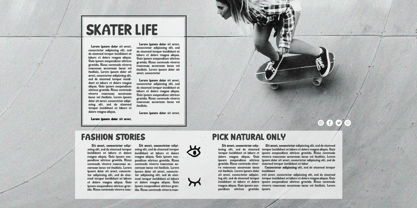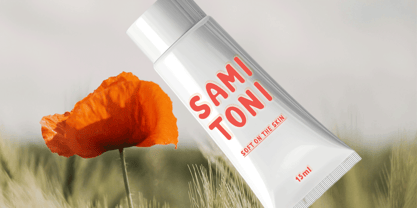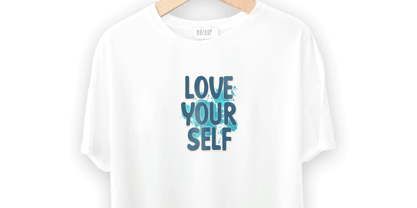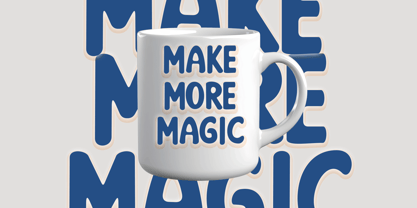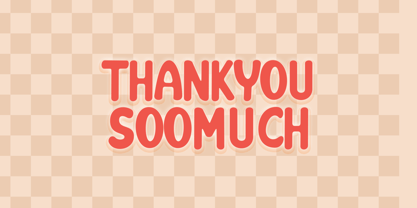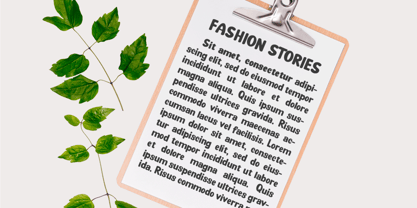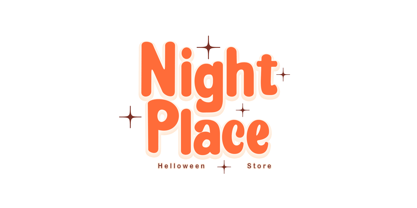
Blocky Vintage
by NH TypeStudio
The Blocky Vintage Font Family was designed by Hadi Nasrul and published by NH TypeStudio. Blocky Vintage contains 1 styles. More about this family
Blocky Vintage Script is a neat, smooth, modern and classic handwritten wavy calligraphy, created to meet the needs of your design project. Blocky Vintage Script can be used for various purposes, such as titles, signatures, logos, correspondence, business cards, quotes, wedding invitations, signs, labels, bulletins, posters, badges, etc. Blocky Vintage Script Contains a complete set of lowercase & uppercase letters, punctuation, numbers, and multilingual support, This font also contains several ligatures, style alternatives, and Style Sets, for those of you who have open type, or via a software panel that supports the engine fly . Includes files: Thank you for your visit.
Designers: Hadi Nasrul
Foundry: NH TypeStudio